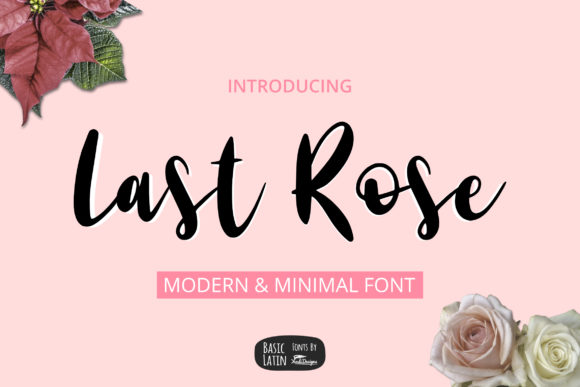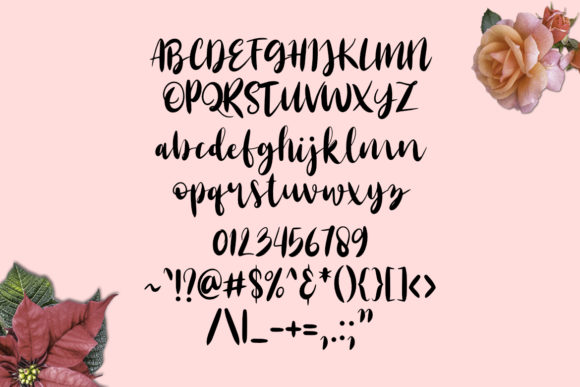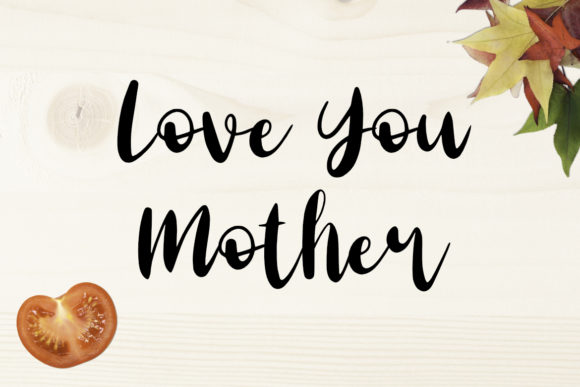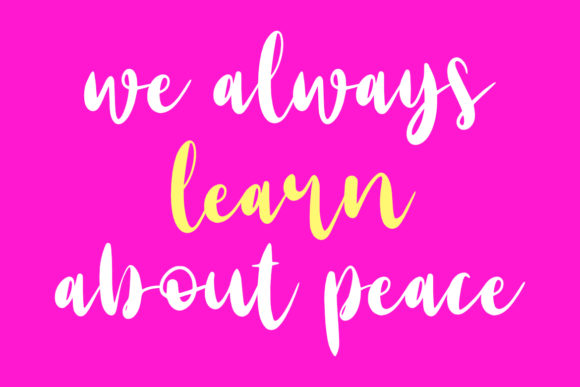
Last Rose Font
About Last Rose Font
Last Rose is a romantic handwritten font, with a modern and minimalist style.
It’s perfect for logos, quotes, wedding designs, album covers, business cards, clothing, magazine covers, posters, and more!